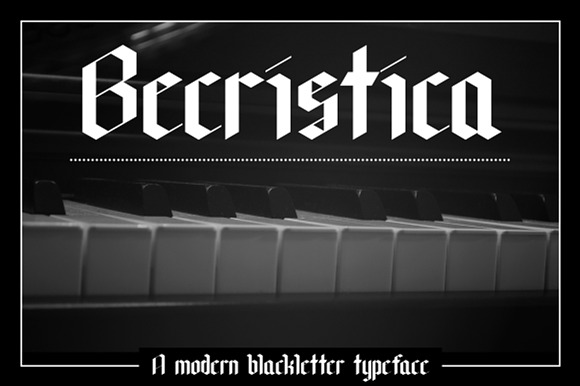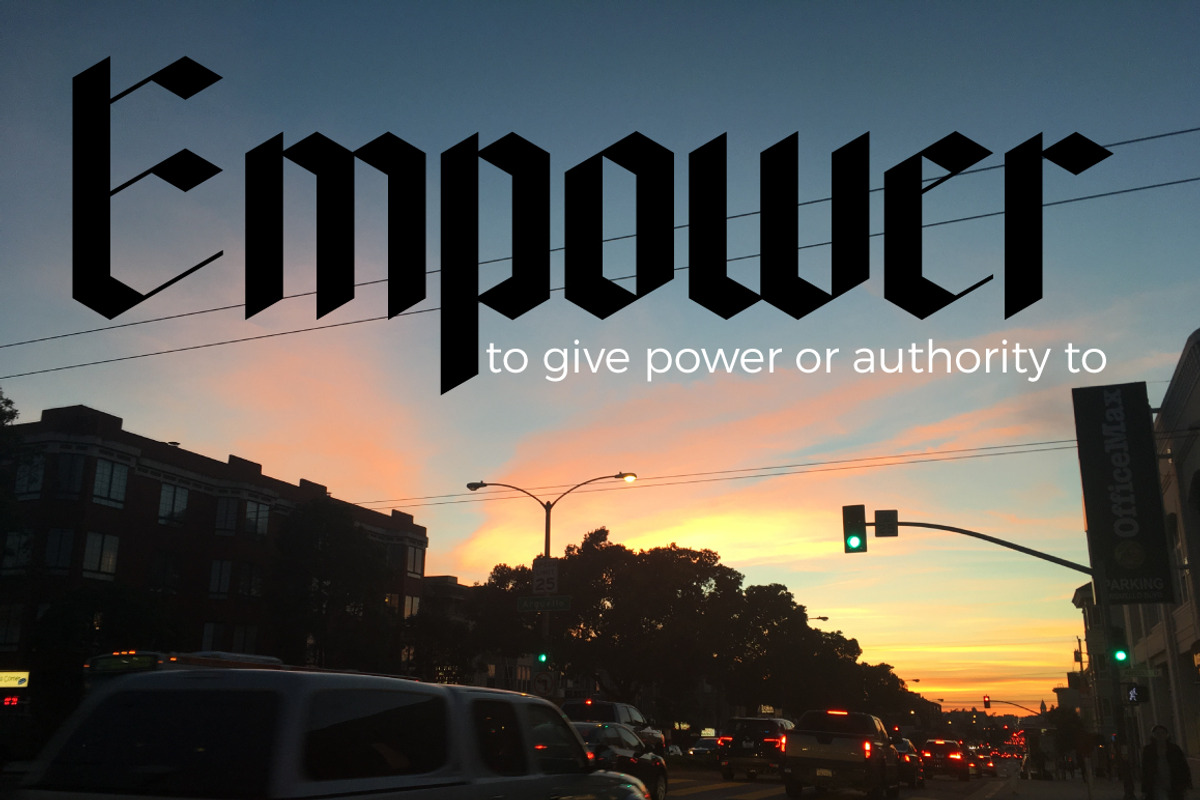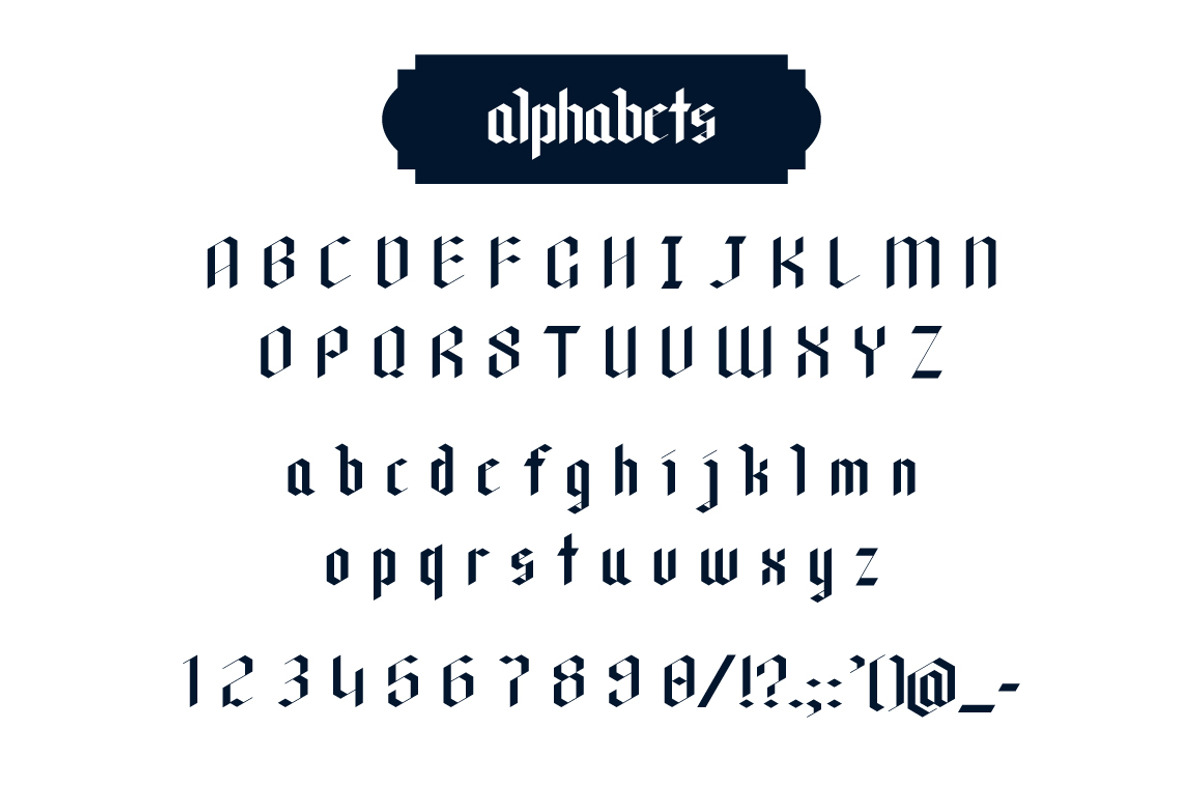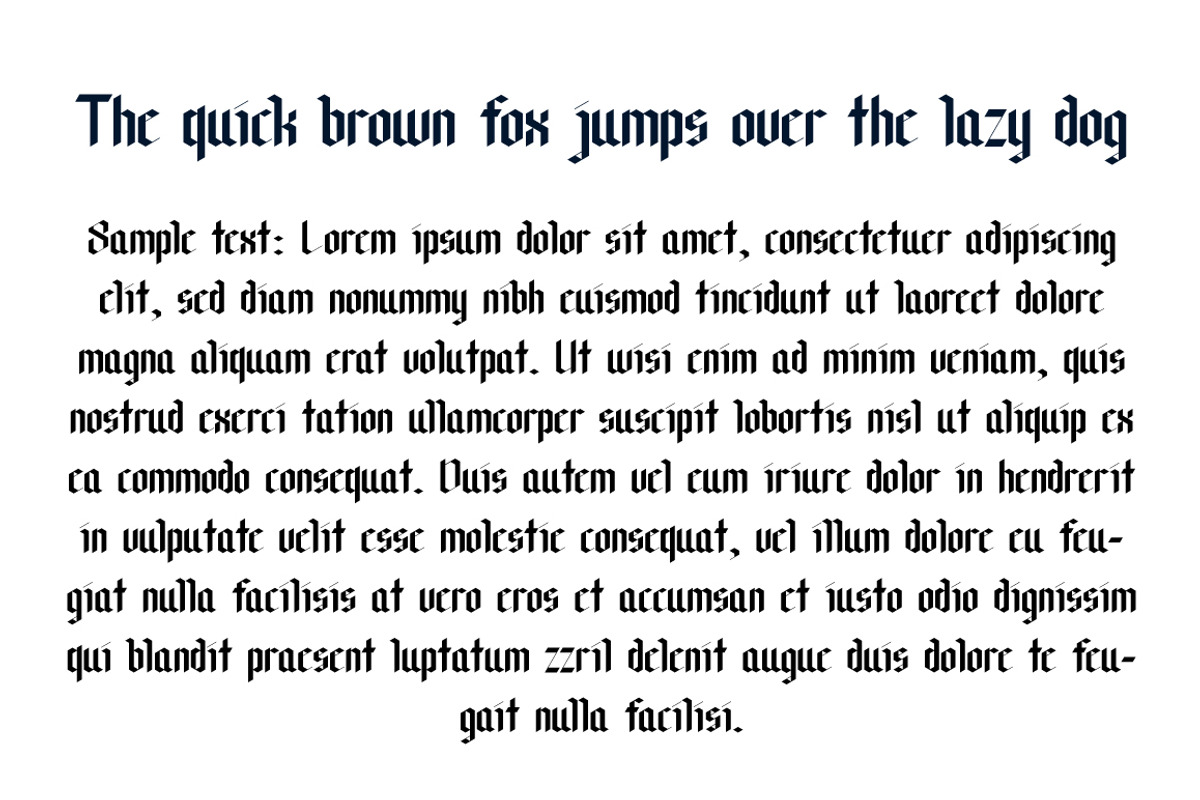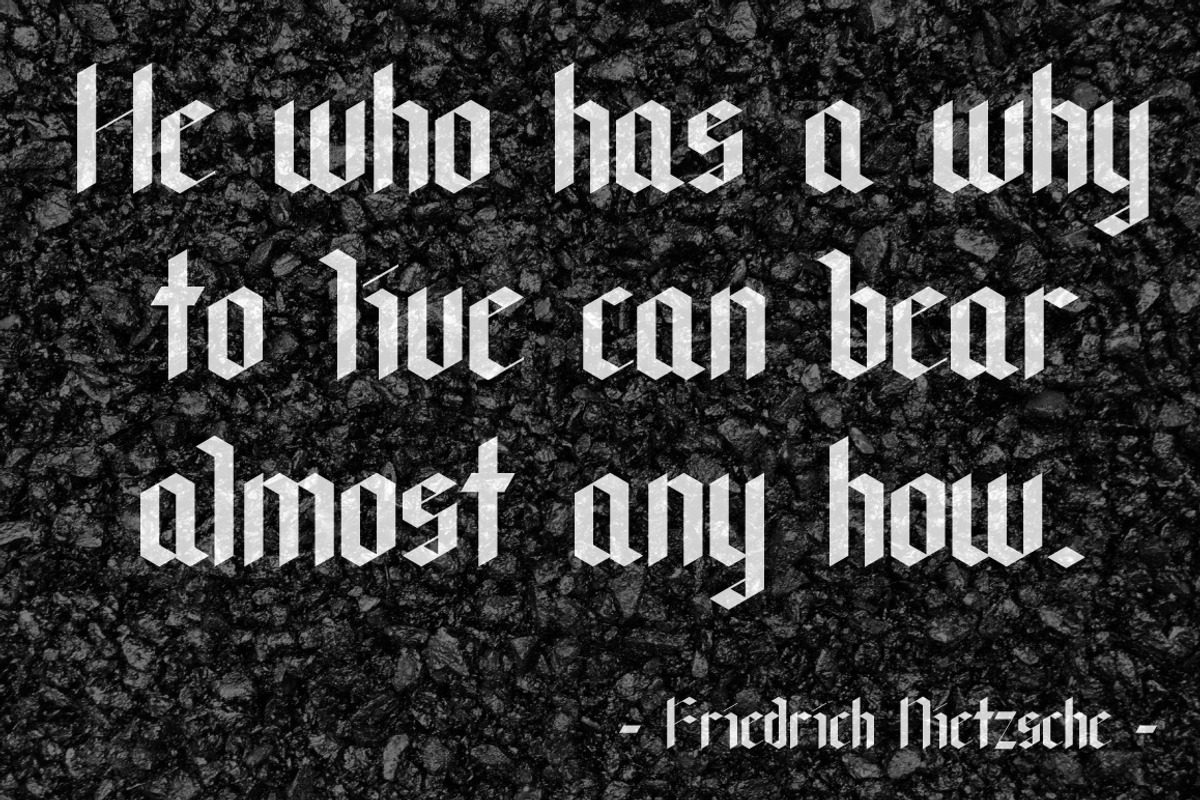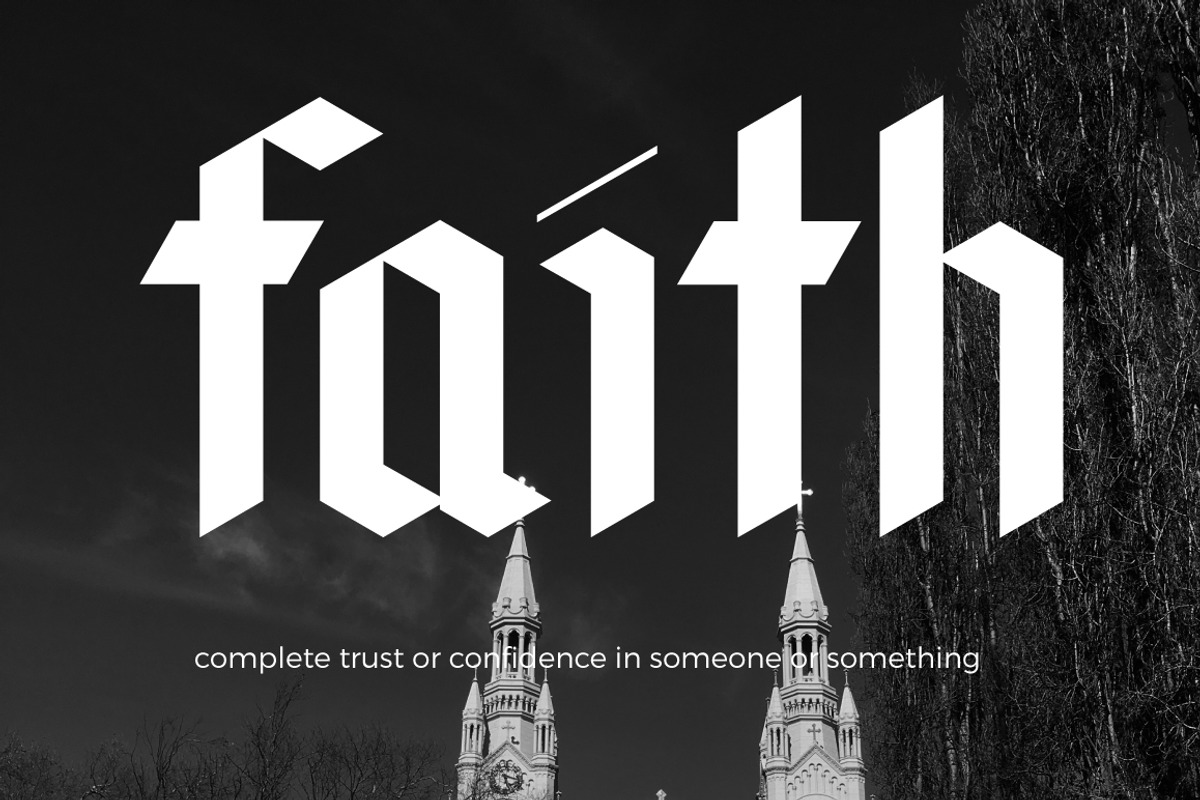
Becristica Blackletter Font
A typeface inspired by my Pilot parallel calligraphy pen. (
It's perfect for use in display, header, poster, old style business card, old style book cover, etc.
Why Becristica Blackletter Font is worth a look
Becristica Blackletter Font by Becris fits naturally into Branding, posters, packaging, typography.